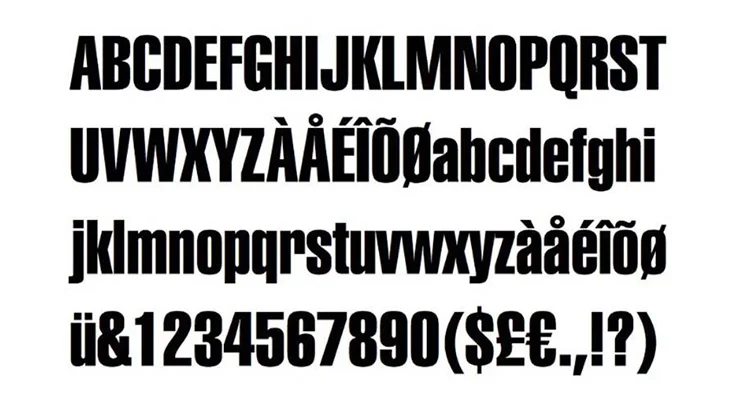
“[Here we want to provide you with the font that’s in it. Its name is Swiss 911 Extra Compressed Font. It comes only in regular style along with Truetype features]”.
Yamaha Font (Information)
Font Name:Yamaha Font Family
Style:Logo, Sans Serif, Display
Font Designer: Nippon Gakki Co. Ltd
What is the logo of Yamaha?
Here we want to provide you with the font that’s in it. Its name is Swiss 911 Extra Compressed Font. It comes only in regular style along with Truetype features.